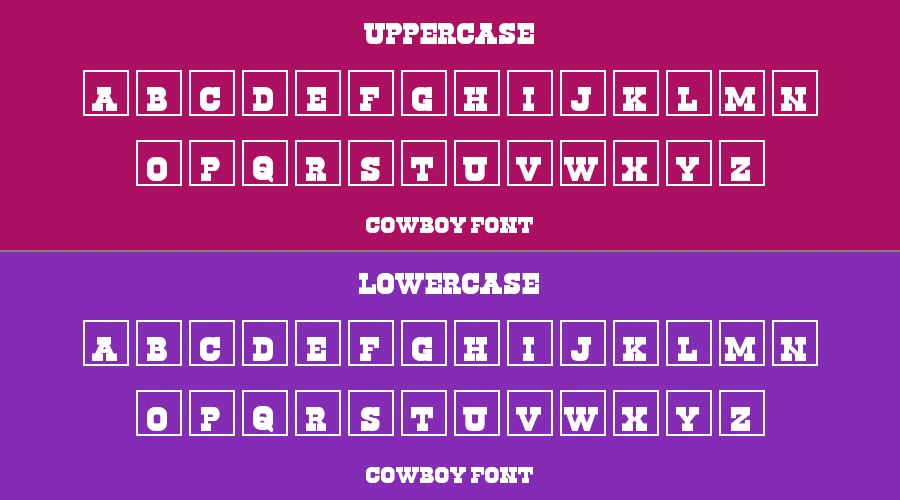
About Cowboy Font
Designed with precision, Cowboy Font merges harmonious shapes with accuracy in every character. This versatility makes it particularly effective for digital signage, where consistency and artistic value directly impact communication quality. Each letterform demonstrates meticulous craftsmanship.
Technical excellence shines through elements like balanced weights and isolated forms, enhancing typographic versatility. In headlines settings, Cowboy Font proves its worth through superior large format impact. The thoughtful execution of terminal style and institutional trust ensures professional results.